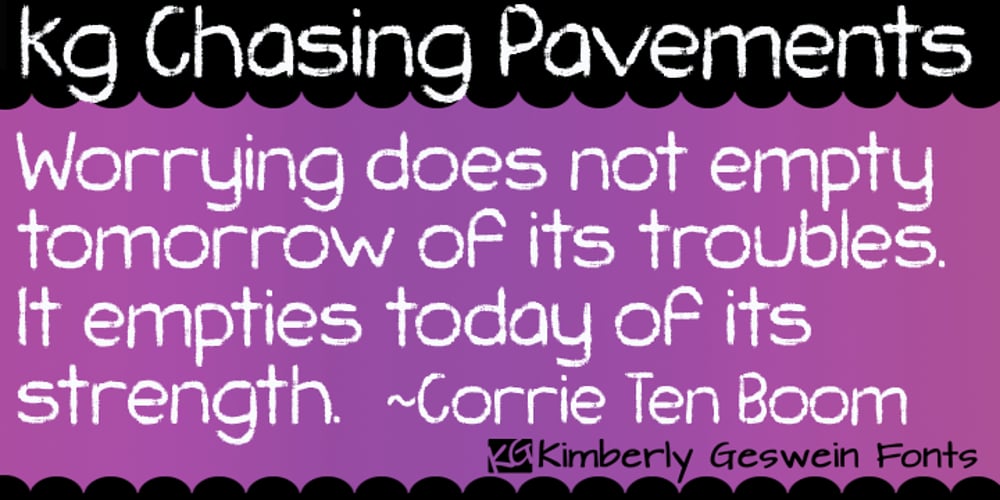
KG Chasing Pavements
KG Chasing Pavements font
KG Chasing Pavements Font Family was designed by Kimberly Geswein and published by Kimberly Geswein. KG Chasing Pavements contains 1 styles and family package options. This handwriting font uses the texture of canvas or linen showing through the lettering. The texture lends itself well to chalk or crayon, although with a close enough look you can see the true texture of fabric.